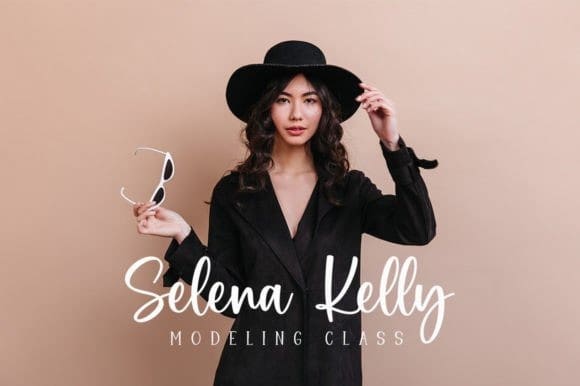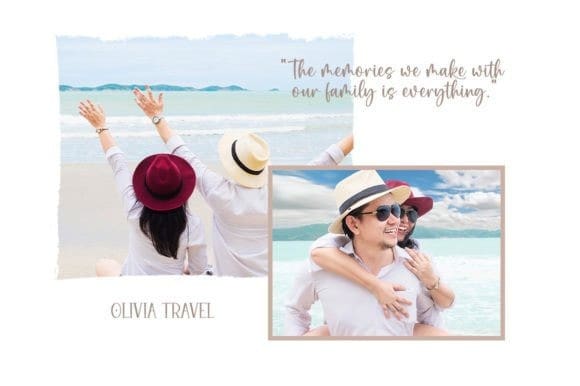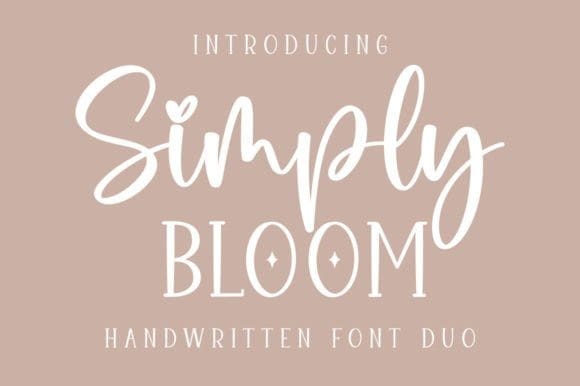
Simply Bloom Font Duo
Simply Bloom Font Duo, consists of two fonts designed to complement each other perfectly. Together or apart, these fonts are ideal for adding a chic and cheery touch to your crafts. This font is PUA encoded which means you can access all glyphs and swashes with ease!